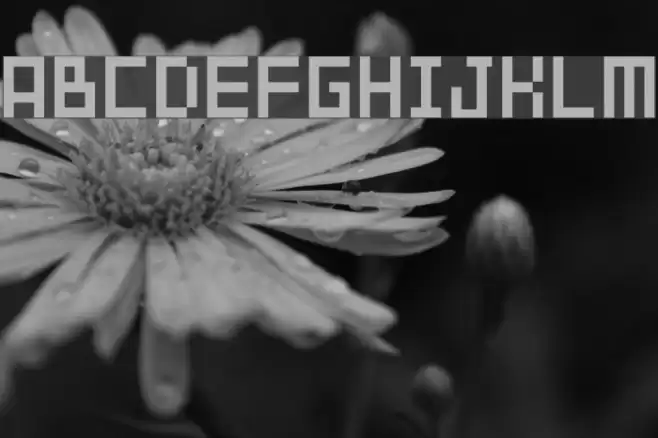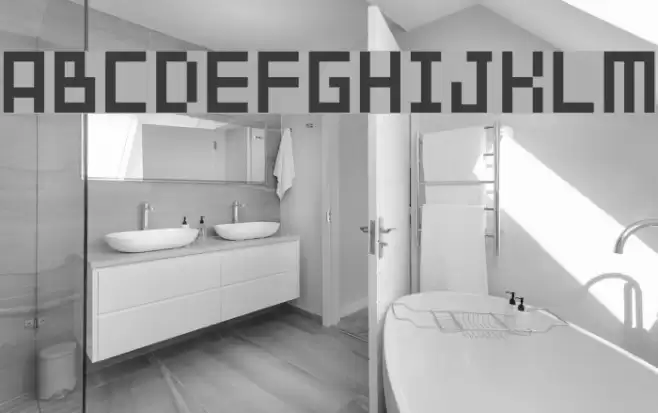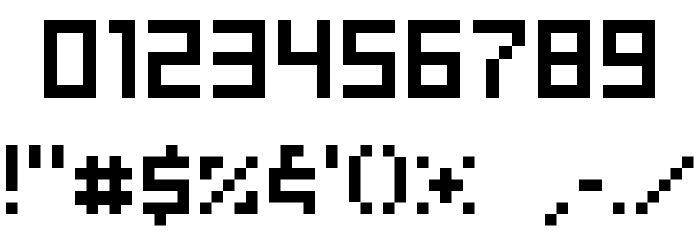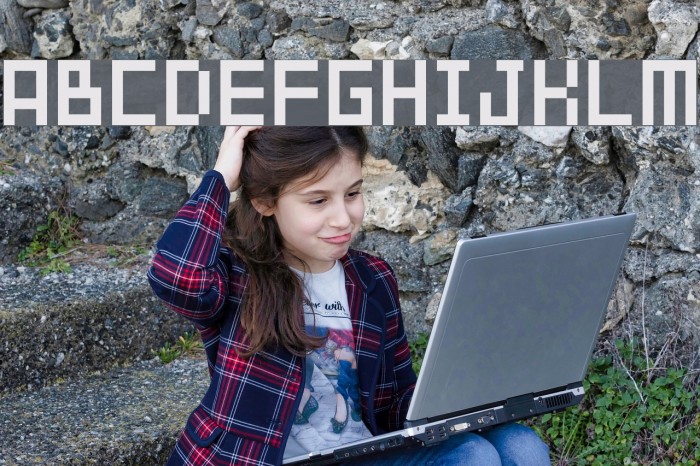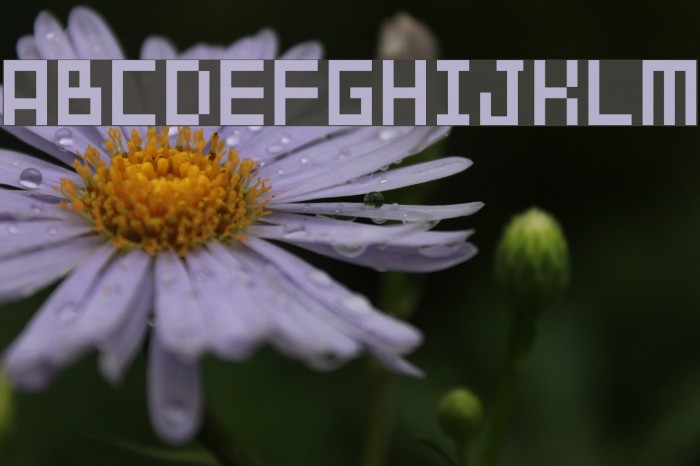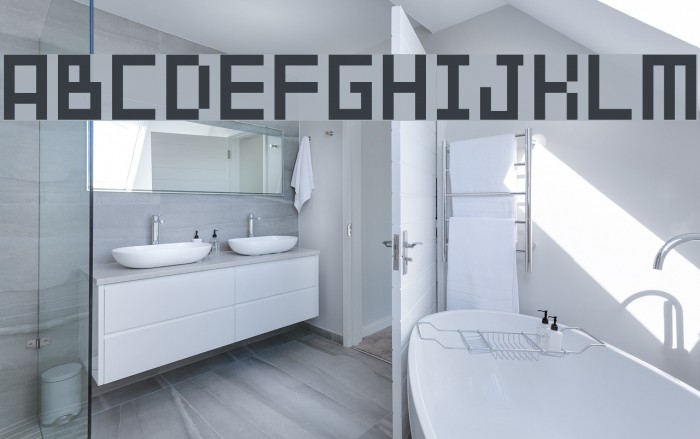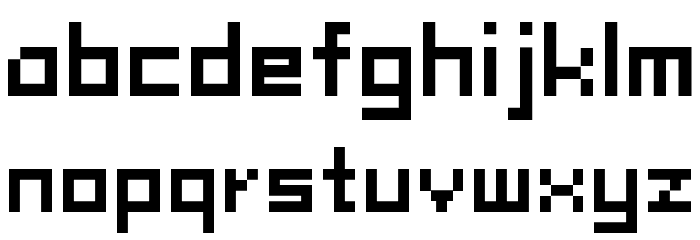
tama mini02 Font
tama mini02 Description
This font exhibits a pixelated, blocky style reminiscent of early digital displays and video games. Each character is constructed with a uniform grid-like structure, giving it a distinctly retro and technological feel. The uppercase and lowercase letters maintain a consistent height, enhancing readability while preserving the font's unique aesthetic. The numerals and special characters follow the same design principles, ensuring a cohesive look across all glyphs. Its geometric precision and simplicity make it ideal for projects that require a nostalgic or digital theme.
A pixelated, blocky font with a retro digital aesthetic from Pixel fonts.
- Proposed Projects: Ideal for retro video games, digital-themed posters, and tech-related branding.
- Overall Style: Retro, Digital
- Use Case: Headlines, Logos, Digital Displays